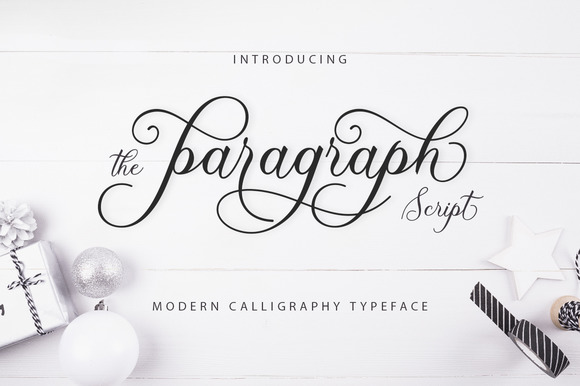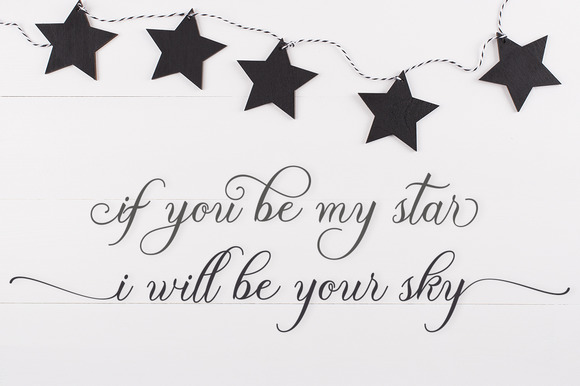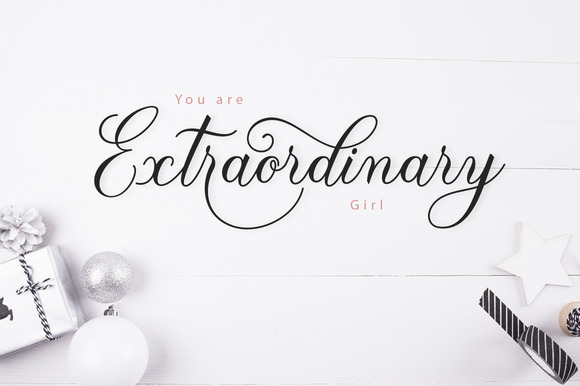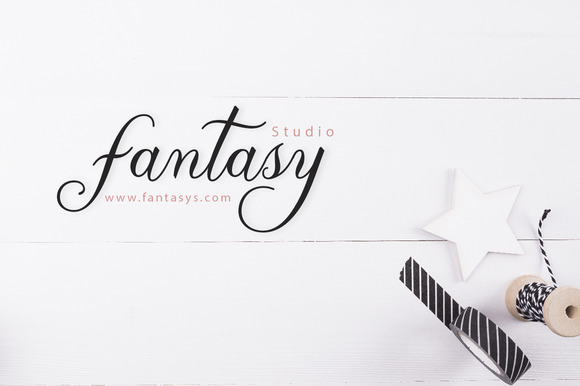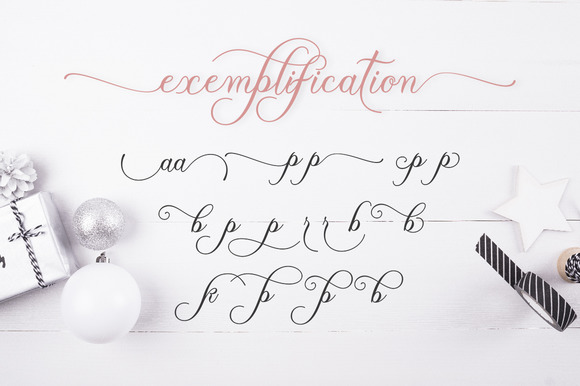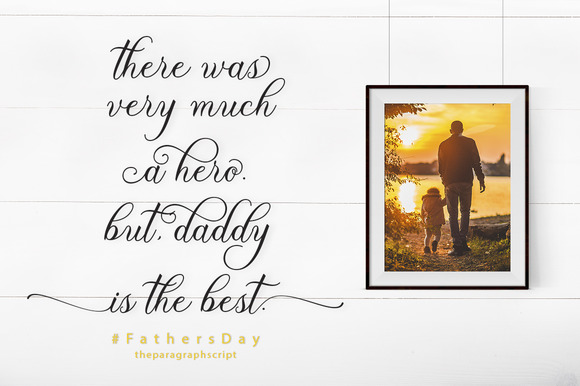
The Paragraph Script Font
About The Paragraph Script Font
The Paragraph is a gorgeous script font that is based on classic calligraphy.
The smooth decorated letters create a classy and elegant look. The Paragraph is packed with over 550 unique glyphs with 236 alternate characters.